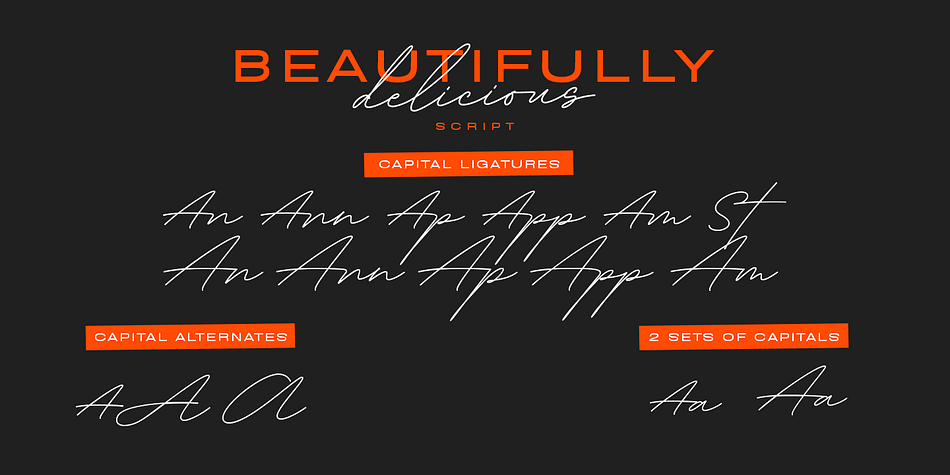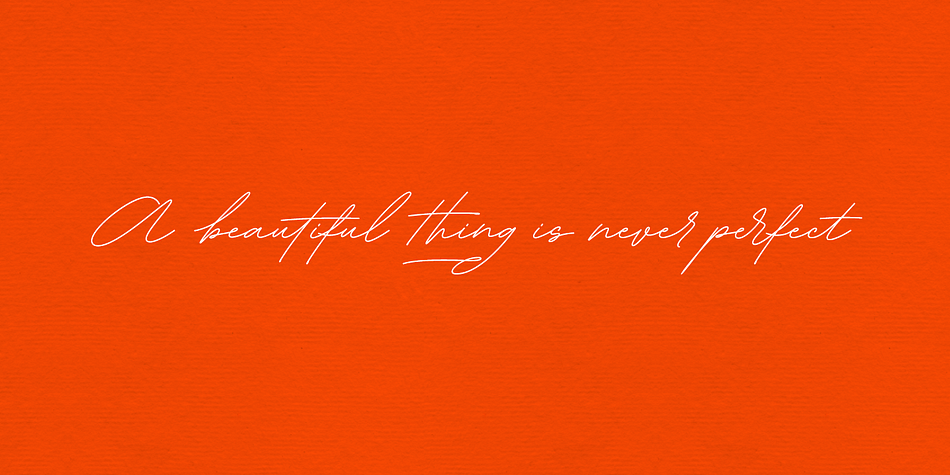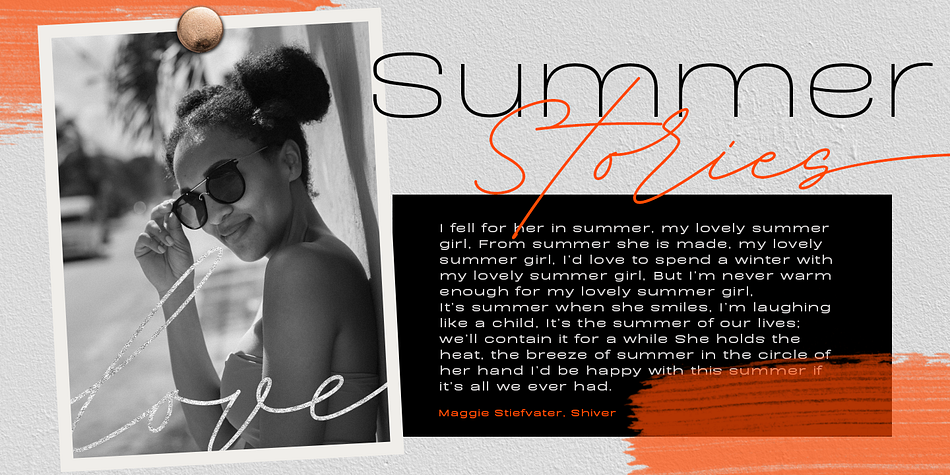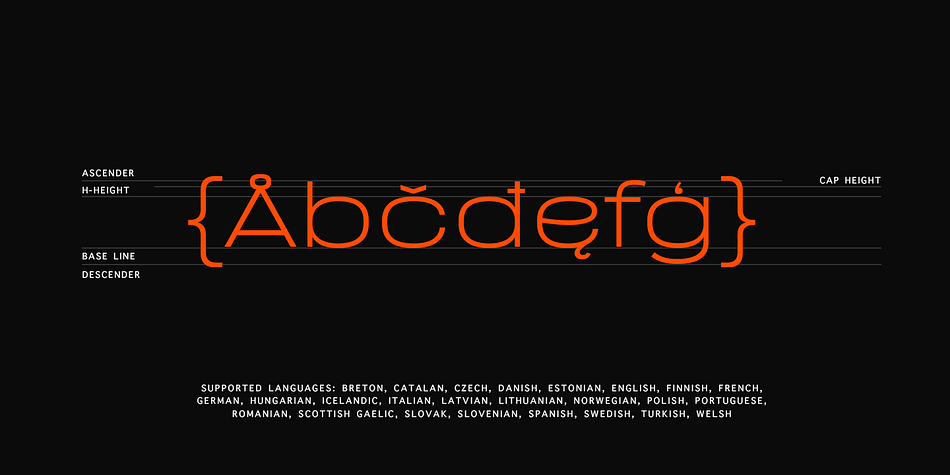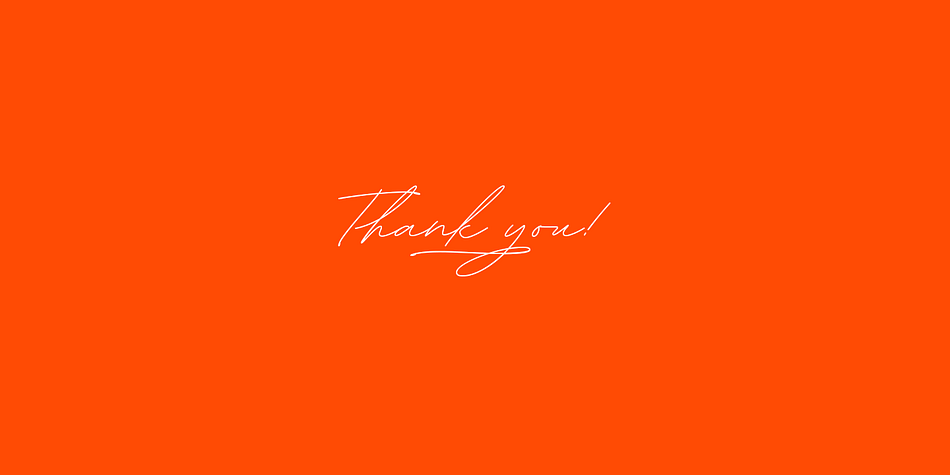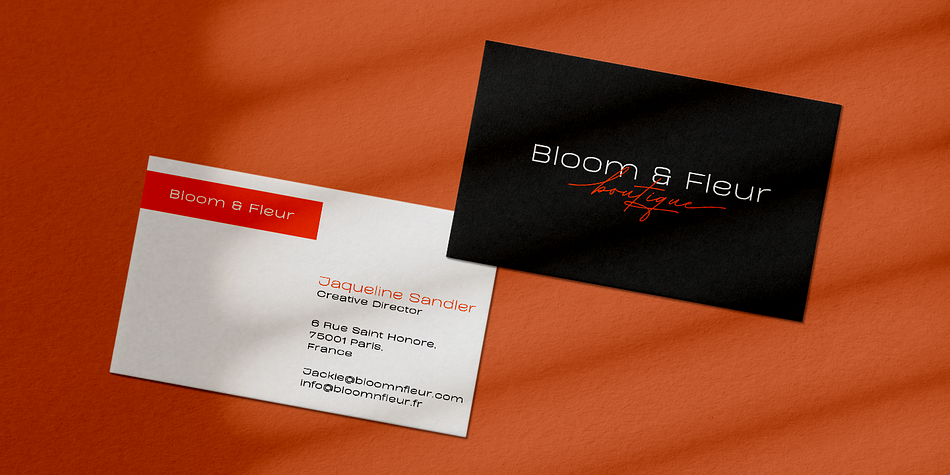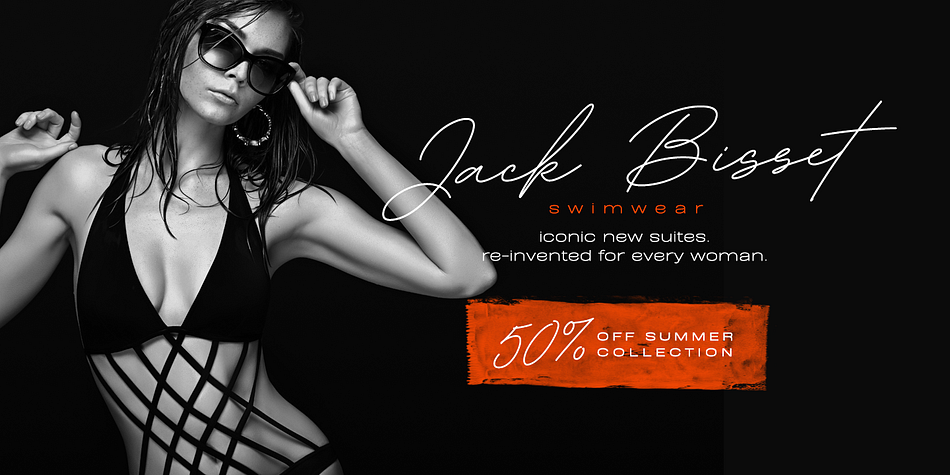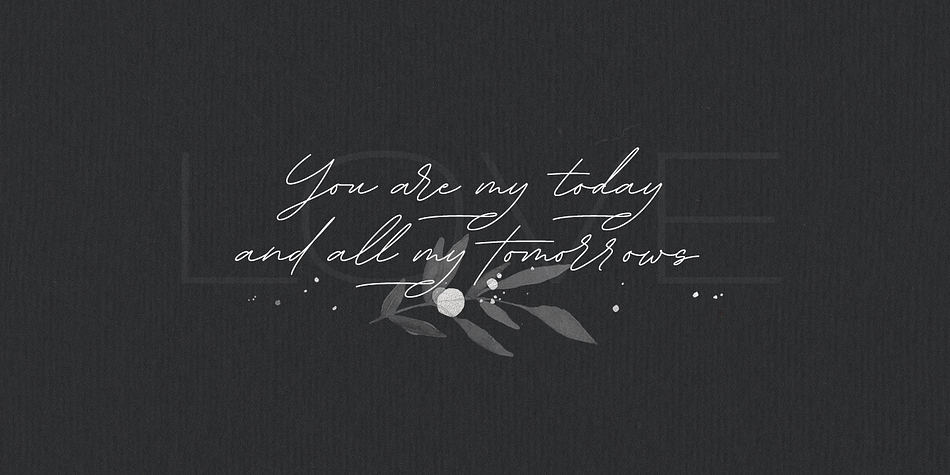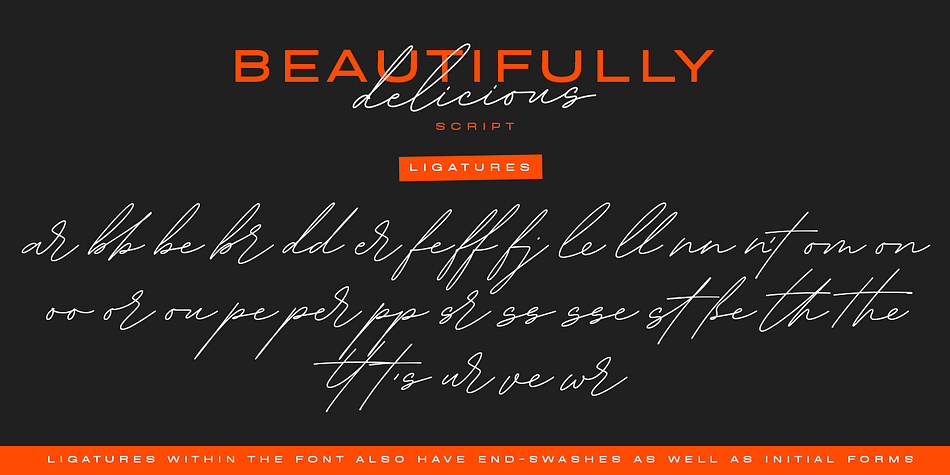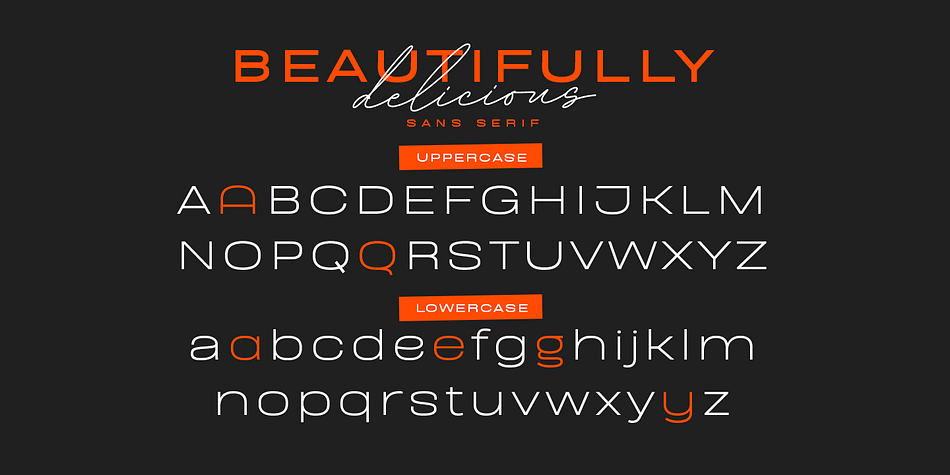
Designed by Elena Genova, Beautifully Delicious is a sans serif and script font family. This typeface has six styles and was published by My Creative Land.
Beautifully Delicious is a new font family that combines an elegant extended sans serif fonts and a signature script. Both fonts create a harmonious union that can enhance your designs in the best possible way.
The family is suitable for graphic design, quotes, branding, all sorts of social media ads, magazines, greeting cards, packaging etc.
The script fonts contain more than 1000 glyphs and benefit from OpenType features such as ligatures (including triple-letter ones), swashes and contextual alternates, two sets of capital letters (tall and short) and underline symbols.
Sans serif font also contain some stylistic alternates and presented in 4 weights: Thin, Regular, Bold and Black.